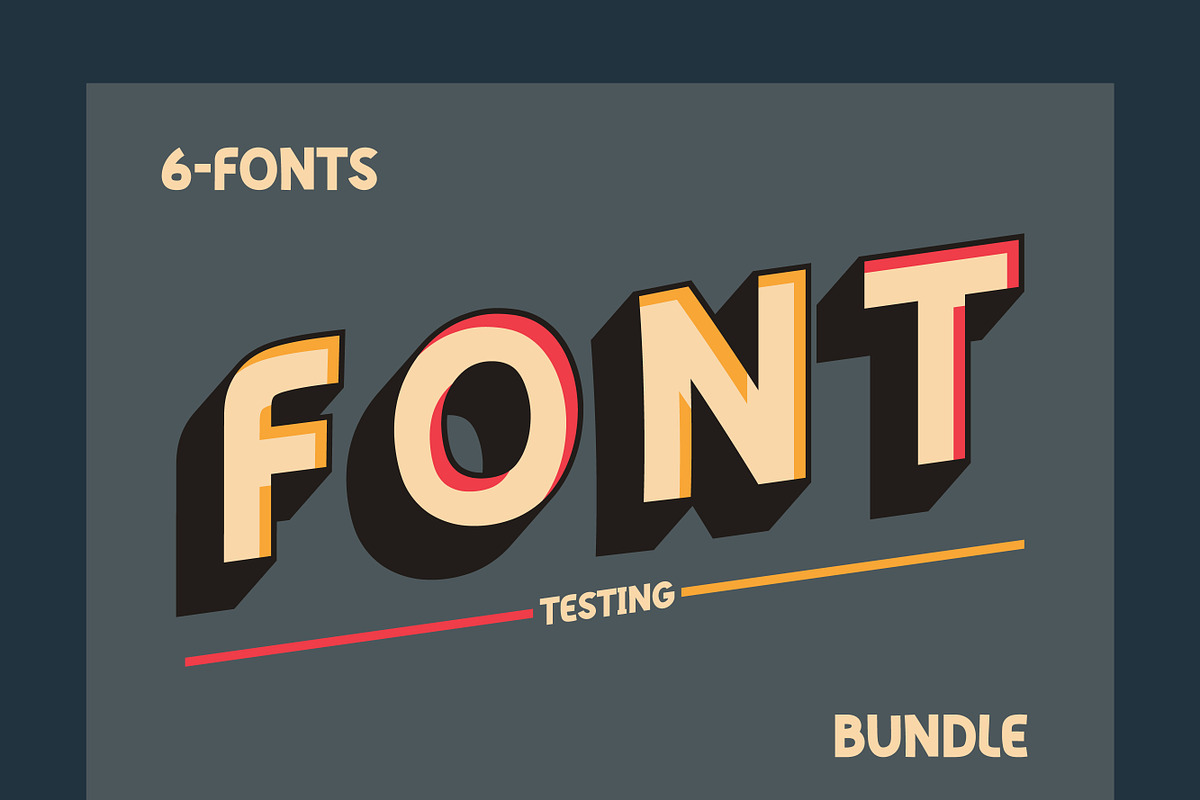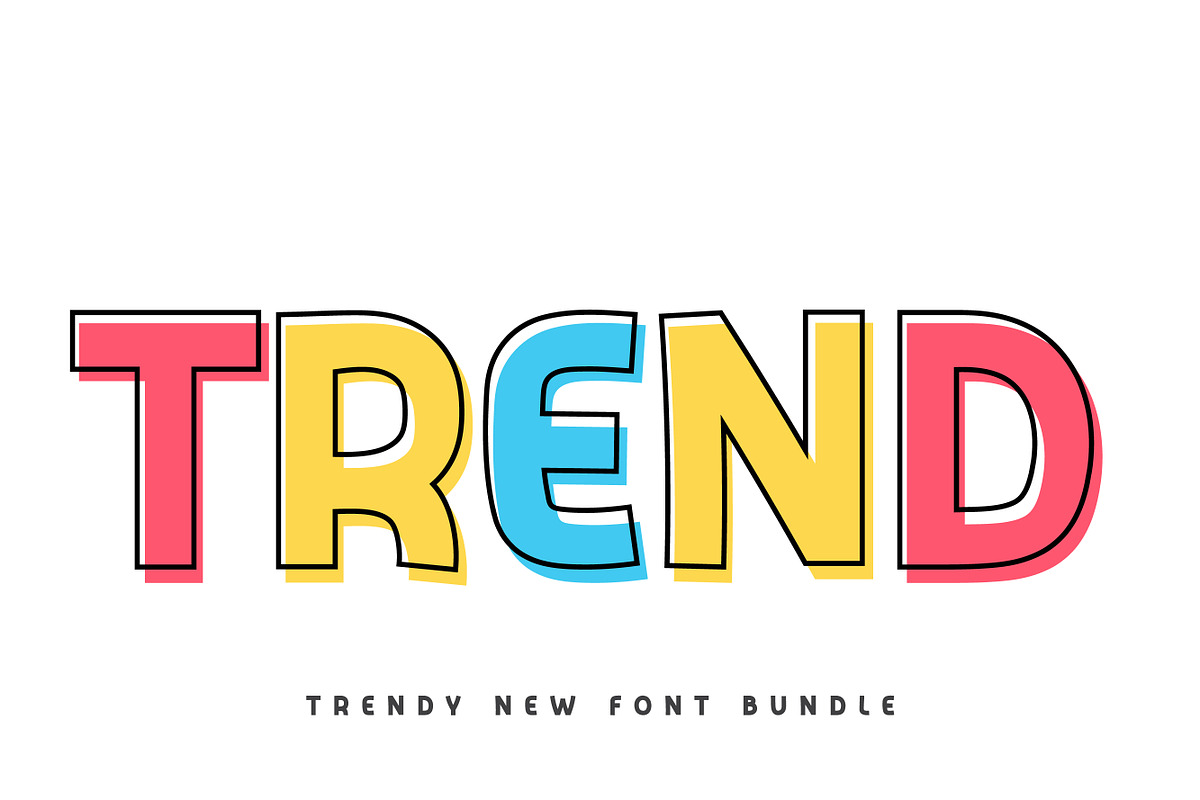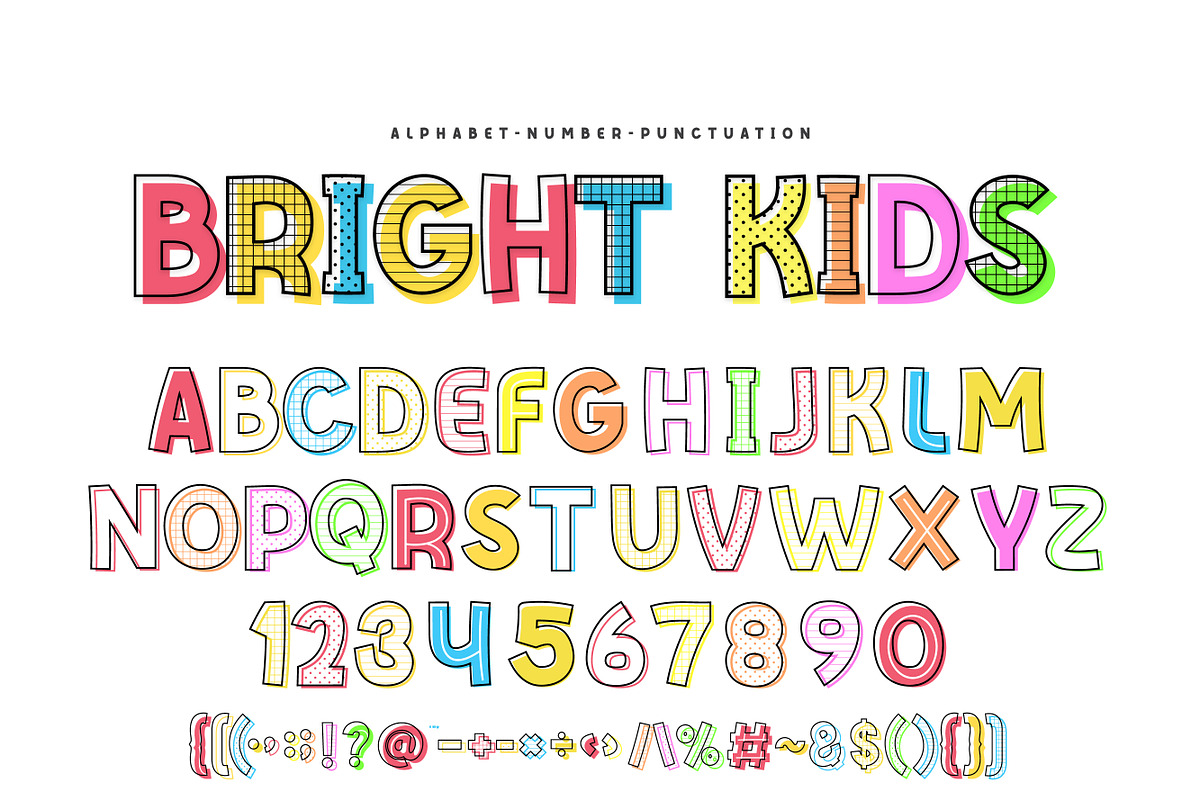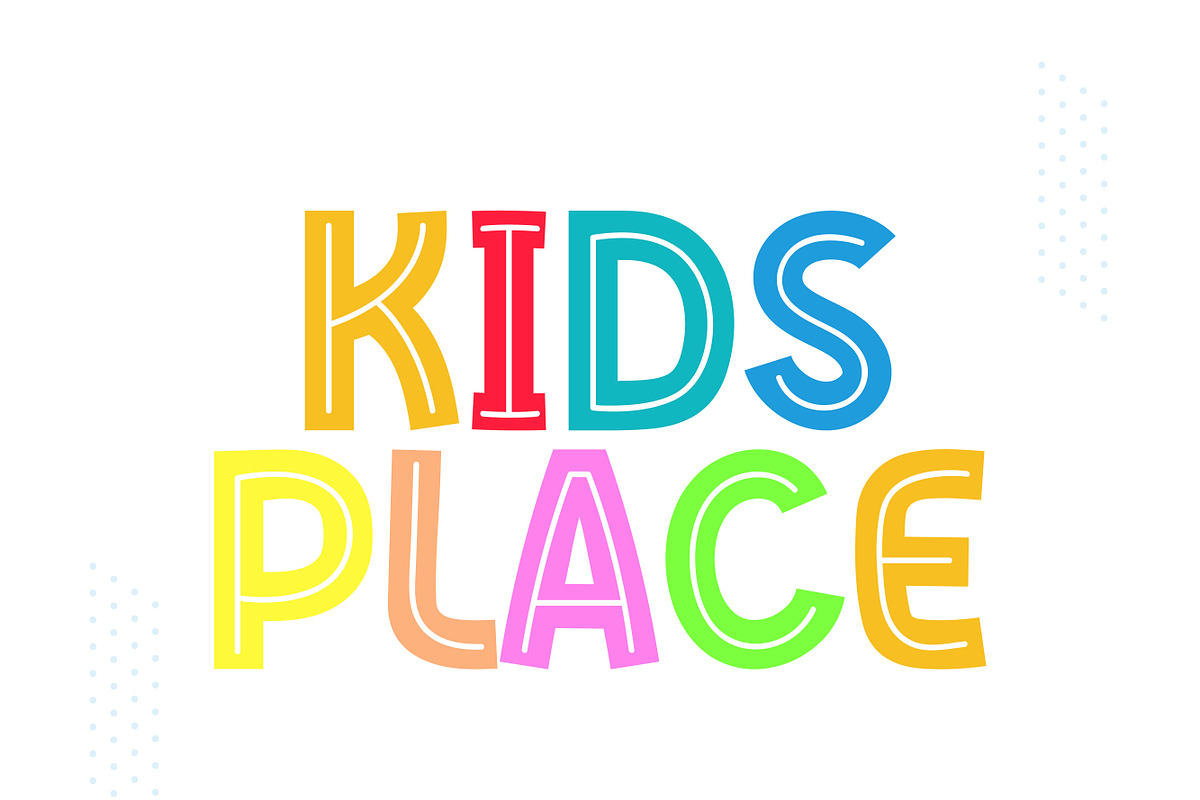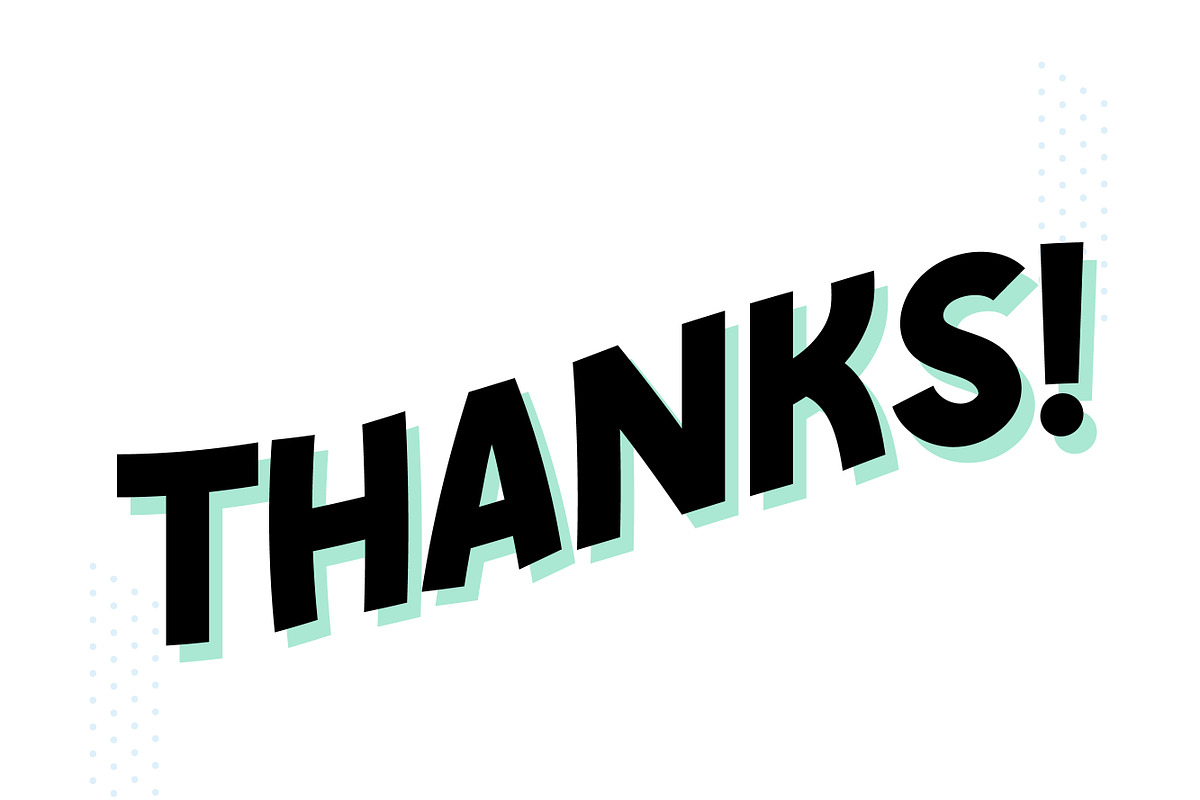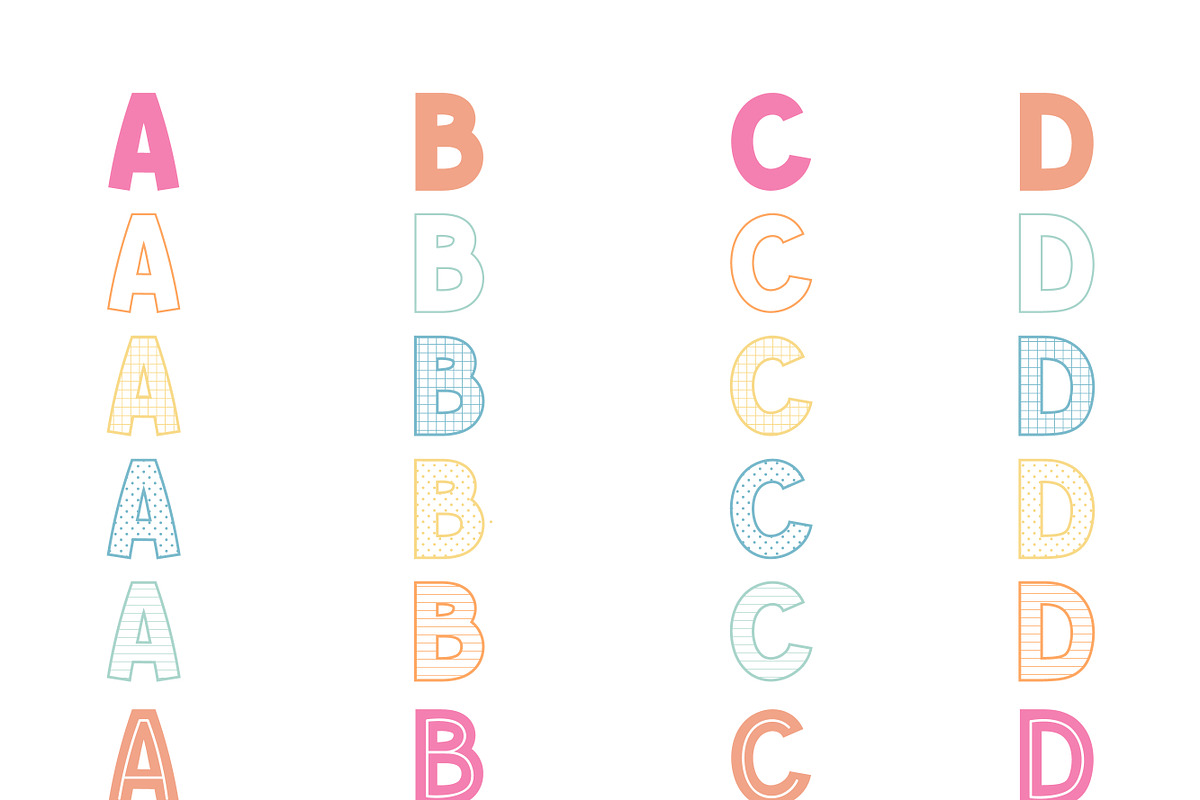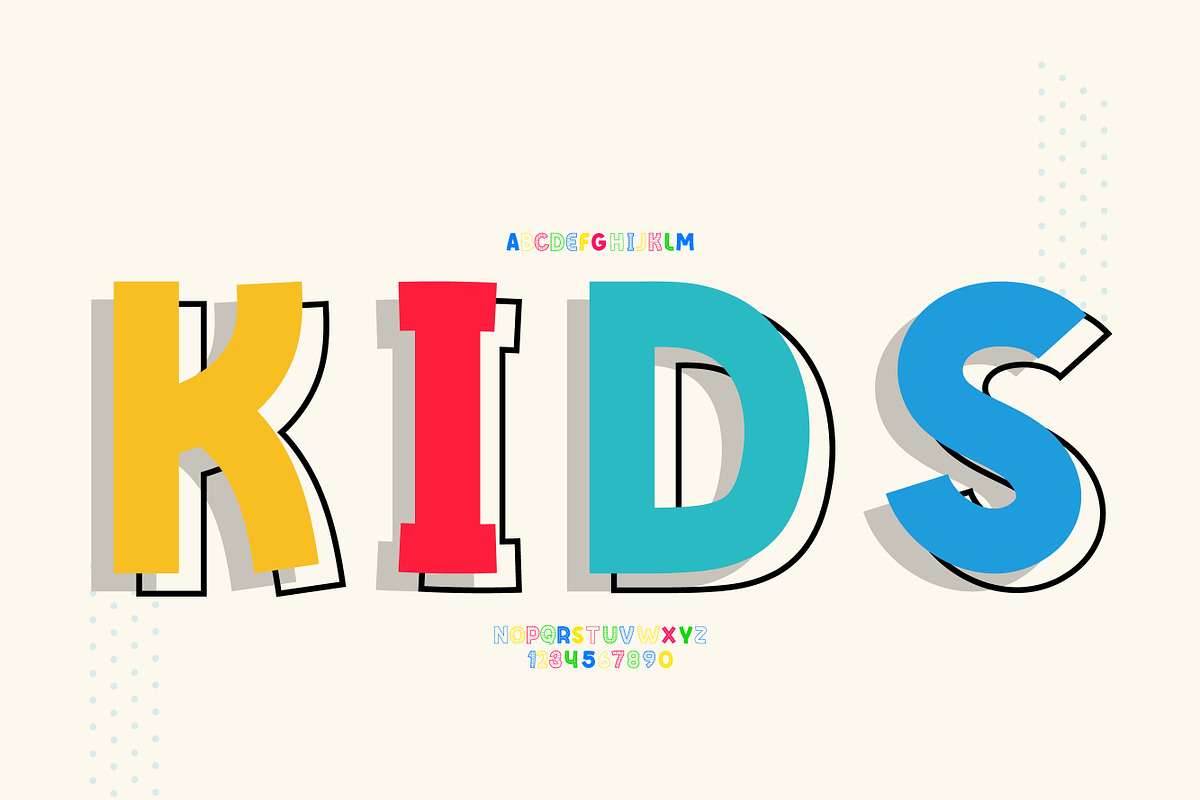
Bright Kids Bundle
Bright Kids Bundle is a fun, trendy and cute handwritten font perfect for circut projects, This fonts features clean lines and minimalist design, Birthday, crafting, branding, decorating, farmhouse designs, shirts, SVG designs, logos, invitations, book covers, stationary, magazines and more to every creative venture, a professional and sophisticated look.